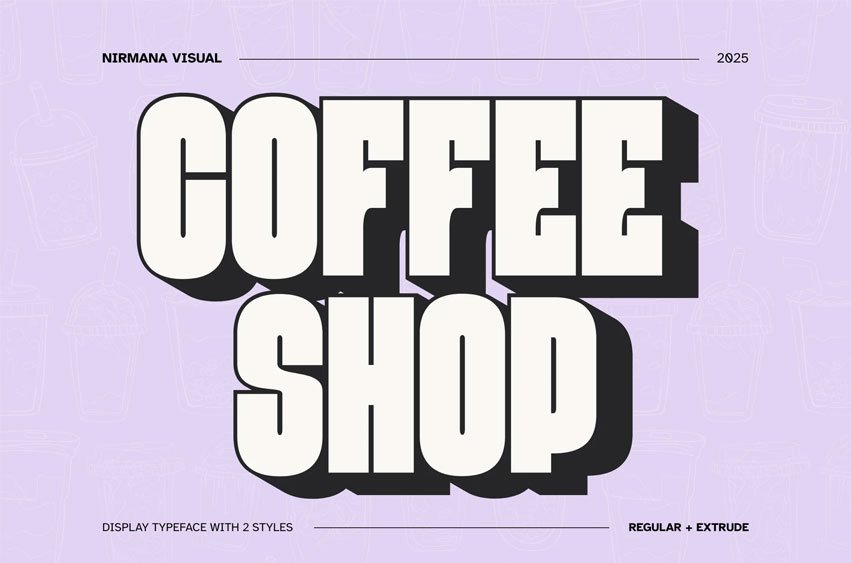
Coffee Shop Font offers beautiful typographic harmony for a diversity of design projects, including logos & branding, social media posts, advertisements & product designs.
What you get: Two Font Styles, Regular & Extrude